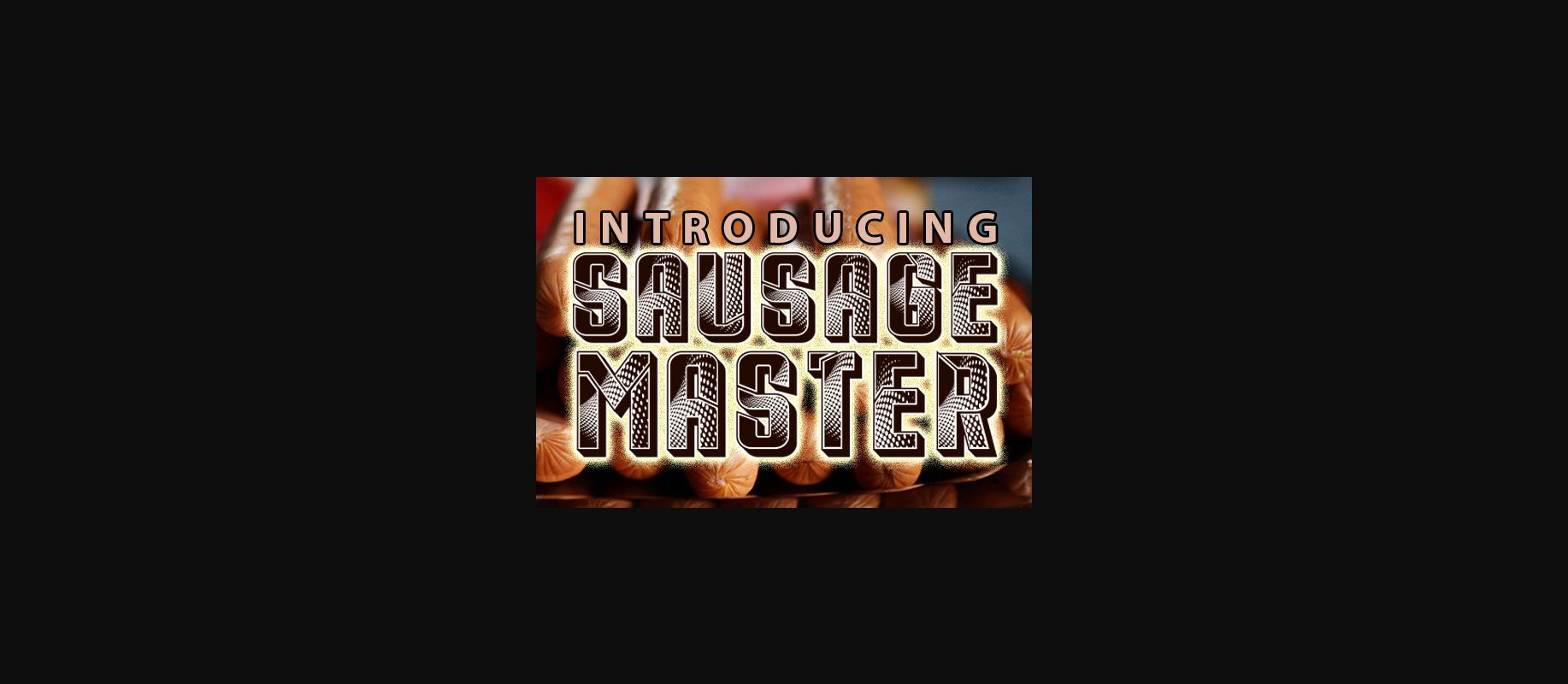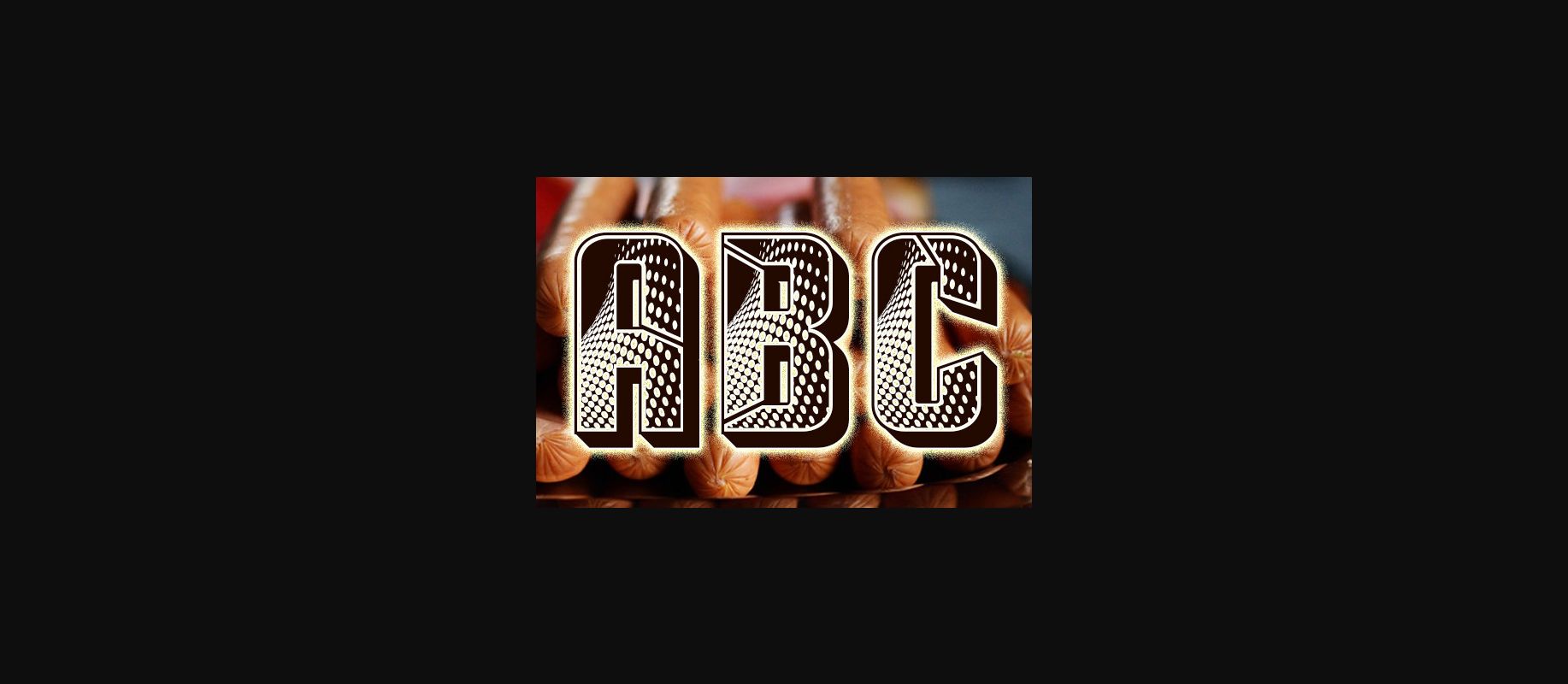
Sausage Master is an awesome and thick lettered decorative font. It is perfect for any branding project such as logos, t-shirt printing, creative products, or pretty much anything that could benefit from a futuristic vibe.